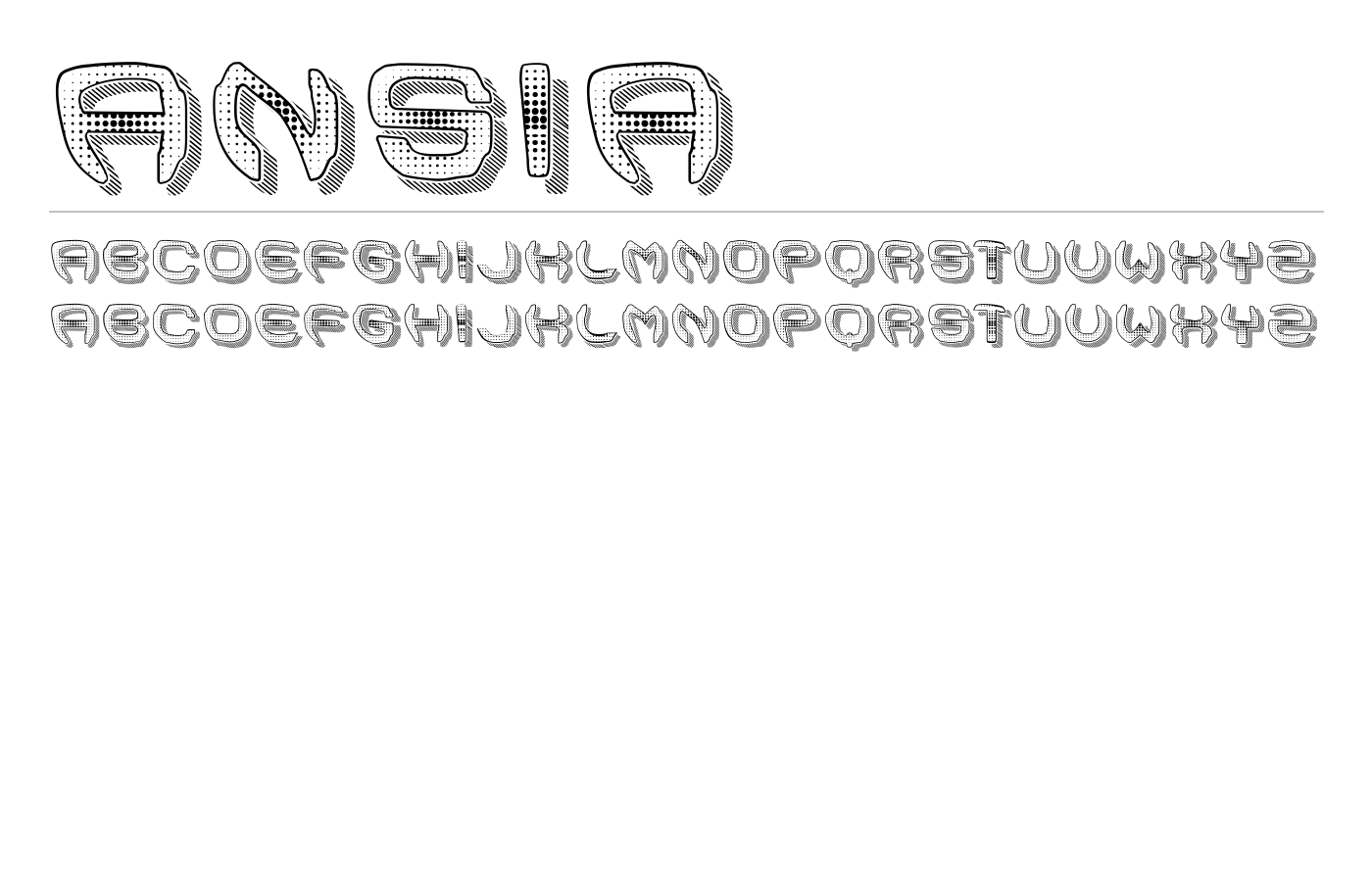
Ansia is a bold, futuristic display font characterized by its rounded, geometric letterforms with a strong 3D effect created through intricate shading and dot patterns. Its playful, techno-inspired style makes it perfect for eye-catching headlines, posters, or branding that seeks a modern, dynamic vibe with a touch of retro digital flair.
Ansia Font
About Ansia Font
| Font family | Ansia Font |